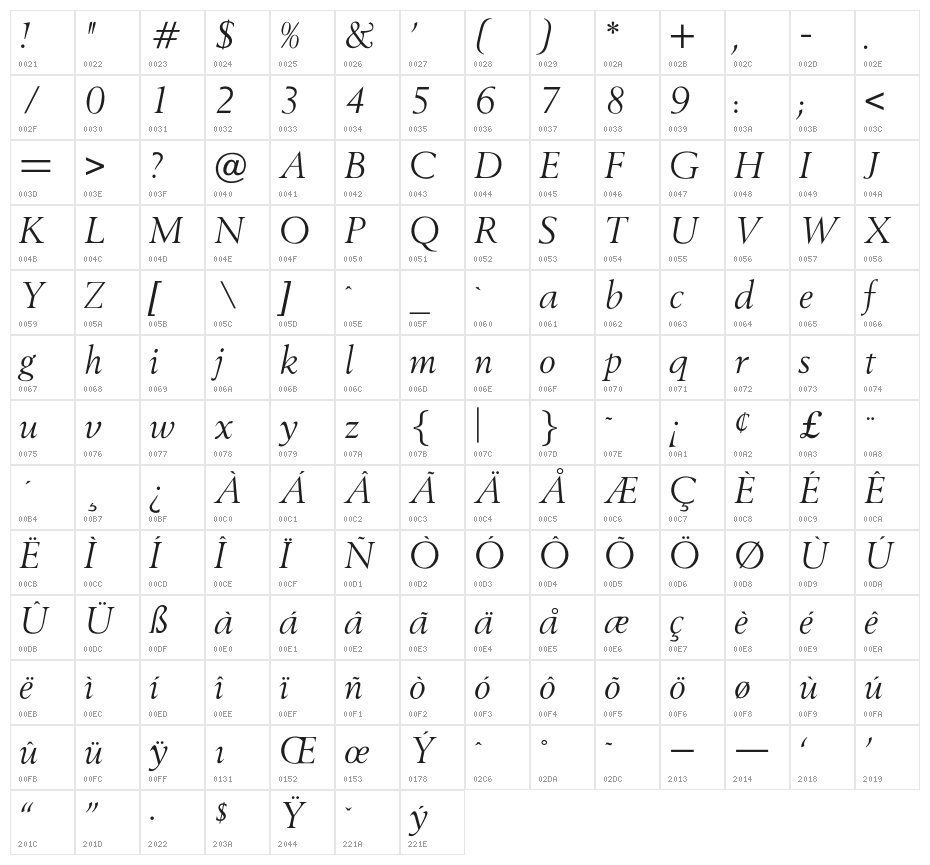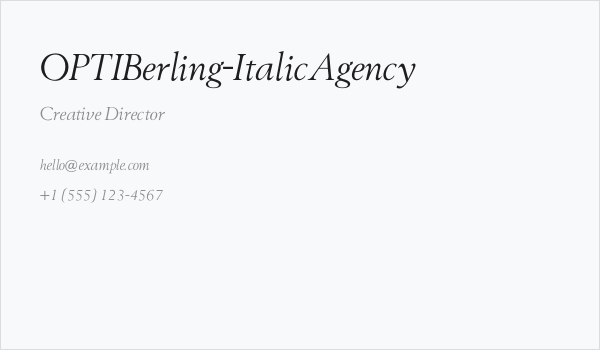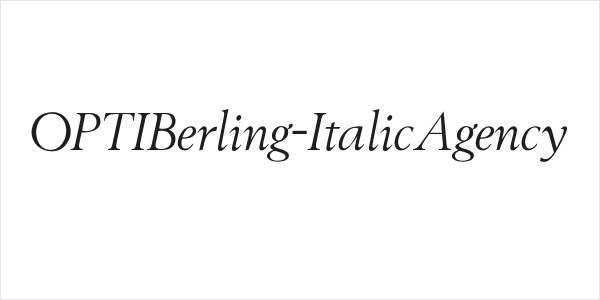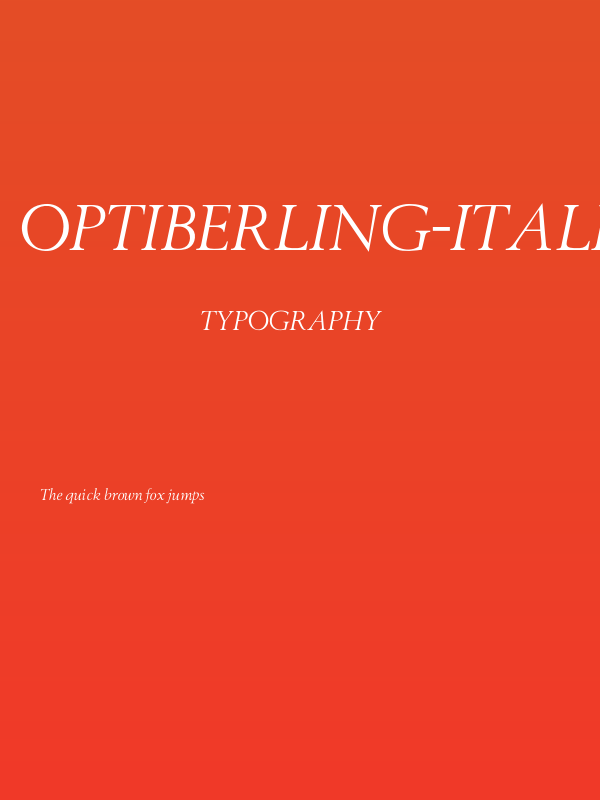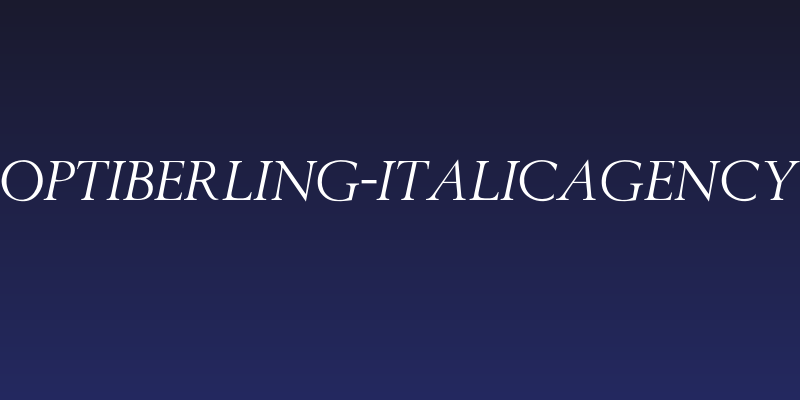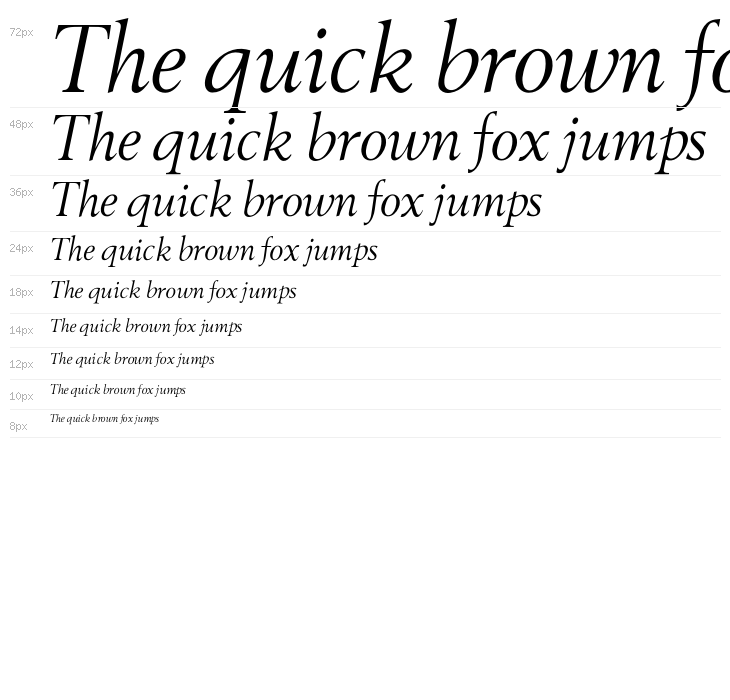
OPTIBerling-ItalicAgency Font
OPTIBerling-ItalicAgency Description
This elegant serif font features a classic italic style with smooth, flowing curves and a refined appearance. The uppercase letters are tall and slightly narrow, while the lowercase letters maintain a consistent slant, enhancing readability. The numerals are proportionate and blend seamlessly with the alphabet, making it versatile for various applications. The special characters are distinct and well-crafted, adding to the font's overall sophistication. Its timeless design makes it suitable for both traditional and modern contexts.
Overall StyleClassic
Proposed ProjectsIdeal for book covers, formal invitations, branding materials, and editorial design.